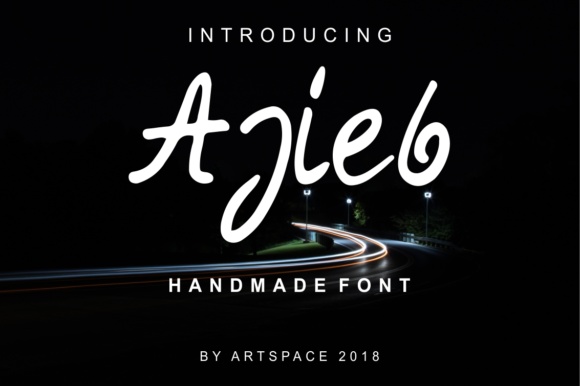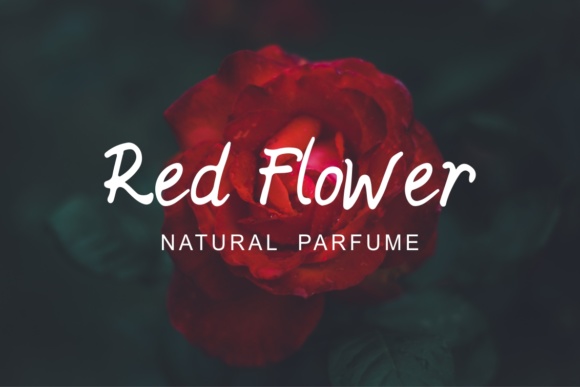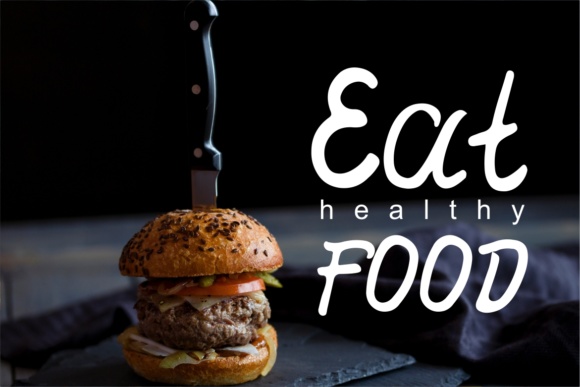
Ajieb Font
About Ajieb Font
The Ajieb is a natural script font. It has big, elegant letters which are suitable for logos, posters, business cards, and much more!